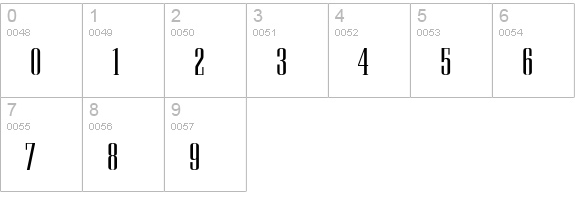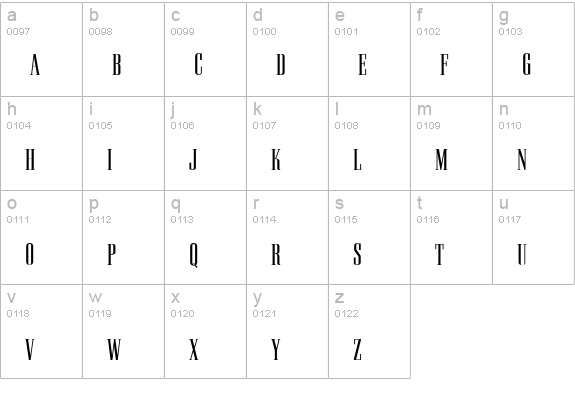
PallMallLightTitling Font Details
PallMallLightTitling font is a timeless and elegant typeface that exudes sophistication and grace. With its clean lines and delicate curves, this font is perfect for adding a touch of class to any design project. Featuring a light weight and a titling style, PallMallLightTitling font is versatile and can be used for a variety of purposes. Whether you're designing a logo, creating a professional presentation, or crafting a stylish invitation, this font will elevate your work to new heights. One of the best parts about PallMallLightTitling font is that it is freely available to download at FontsMarket.com. This means that you can easily access this stunning font without having to worry about any costs. It's a fantastic opportunity to enhance your design toolkit with a top-quality font, completely free of charge. The clarity and legibility of PallMallLightTitling font make it a reliable choice for both print and digital designs. It is highly readable at various sizes, ensuring that your message will be effectively communicated to your audience. This font also works well across different platforms and devices, making it a versatile option for all your design needs. With its timeless elegance and free availability, PallMallLightTitling font is a must-have for any designer or creative professional. Download it today at FontsMarket.com and experience the beauty and versatility of this exceptional font.